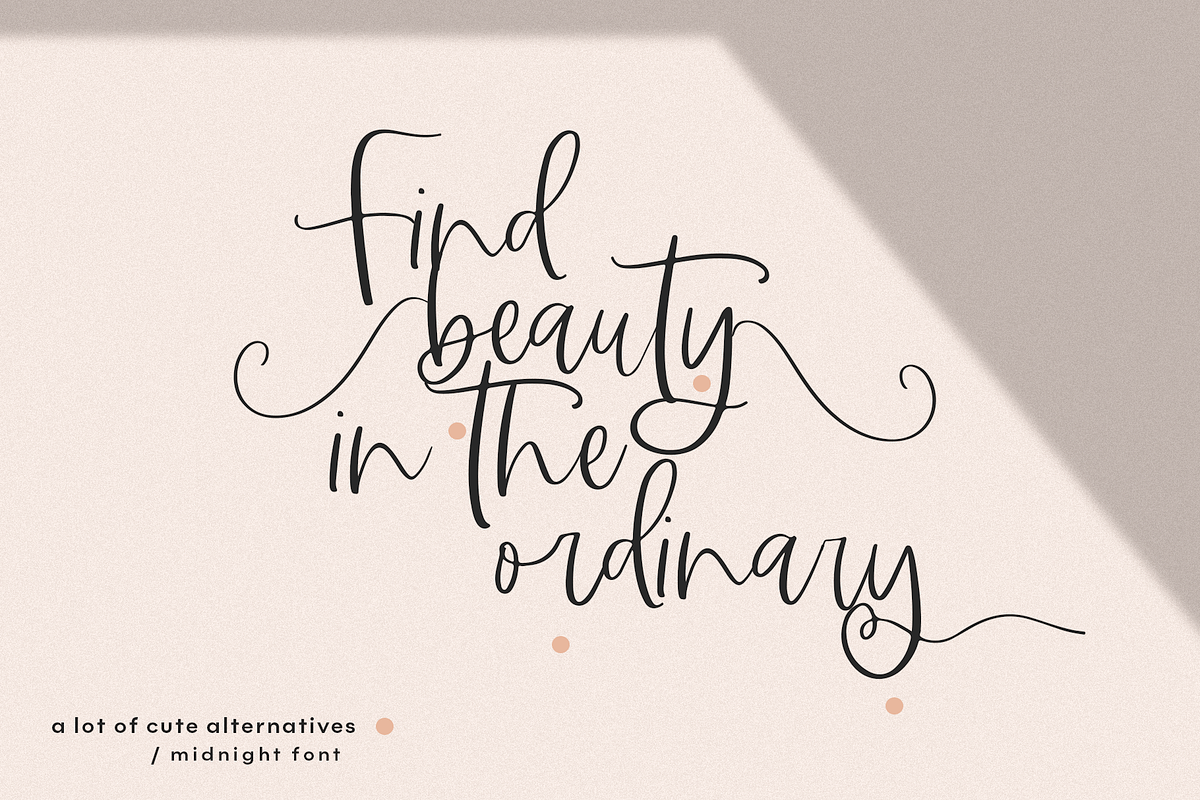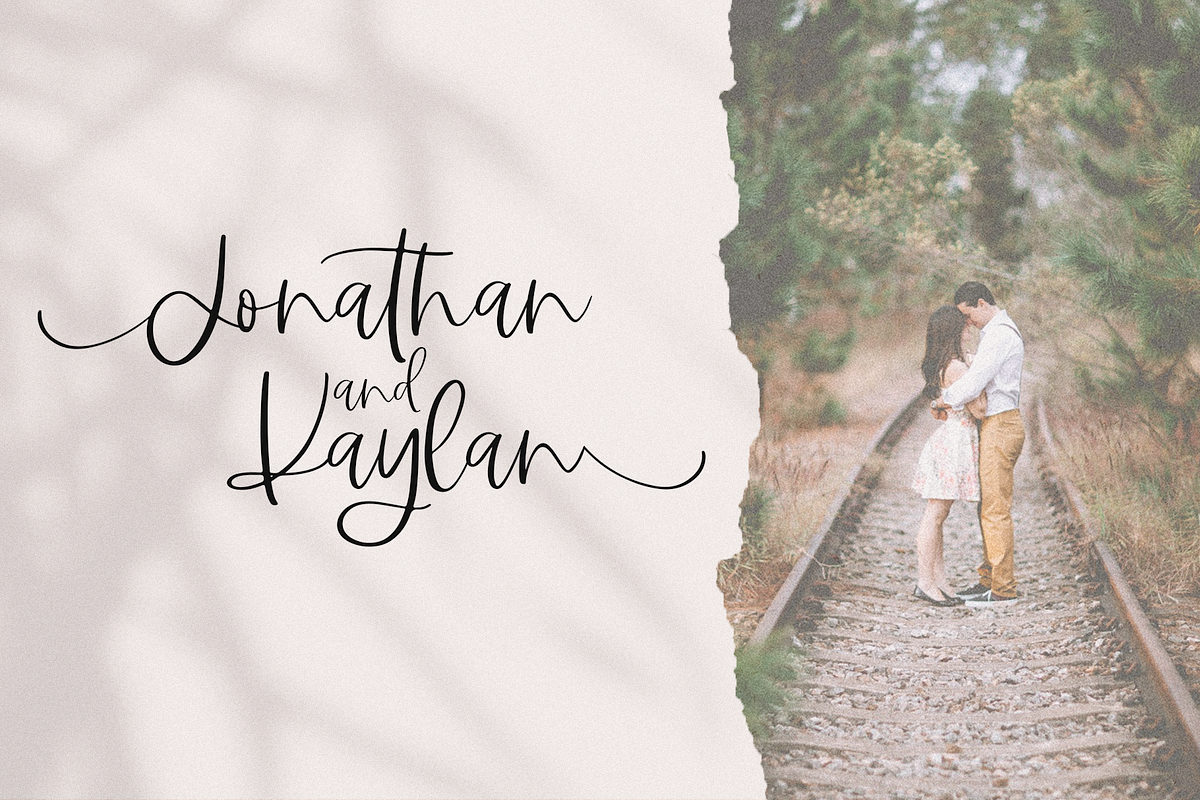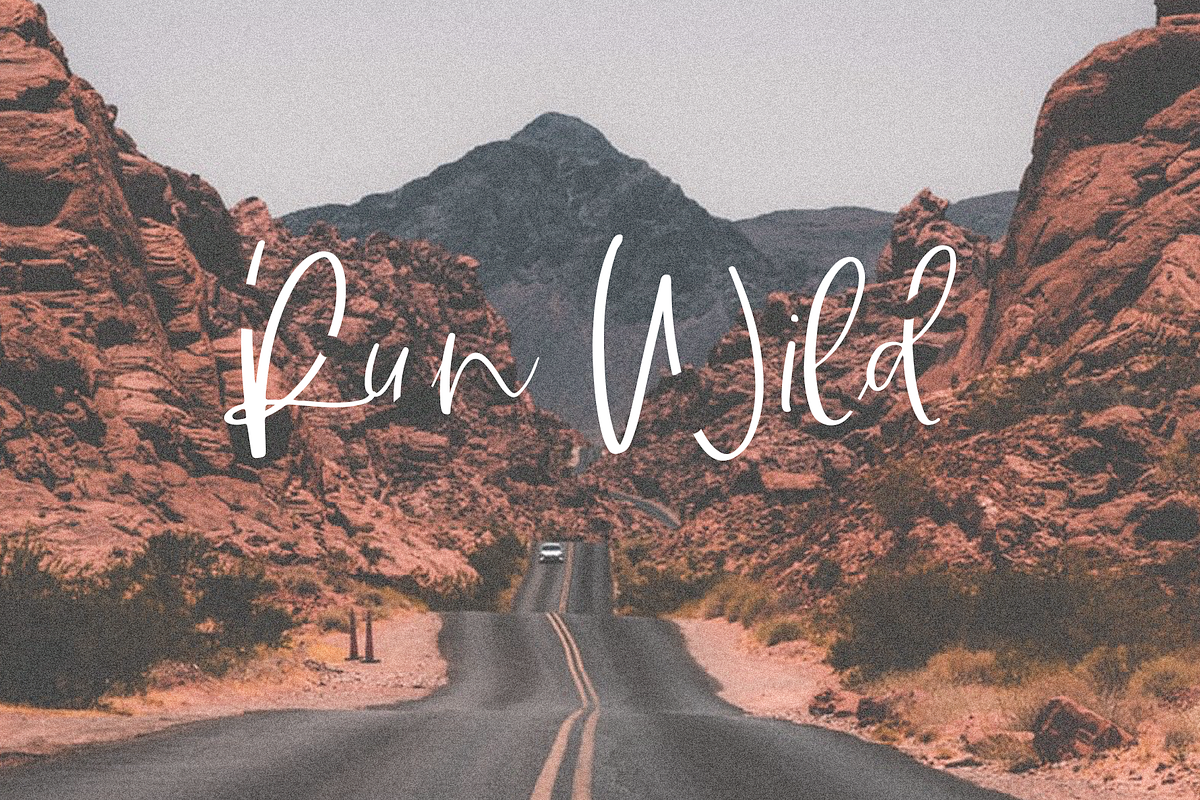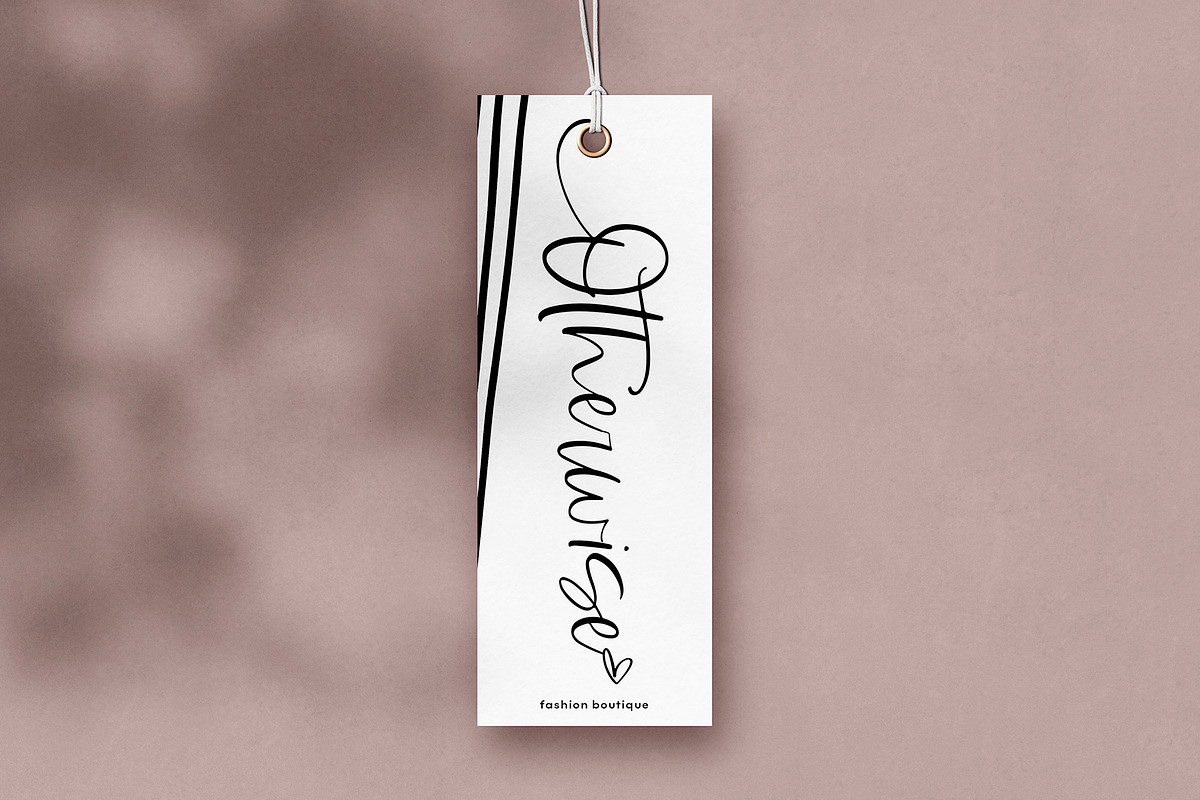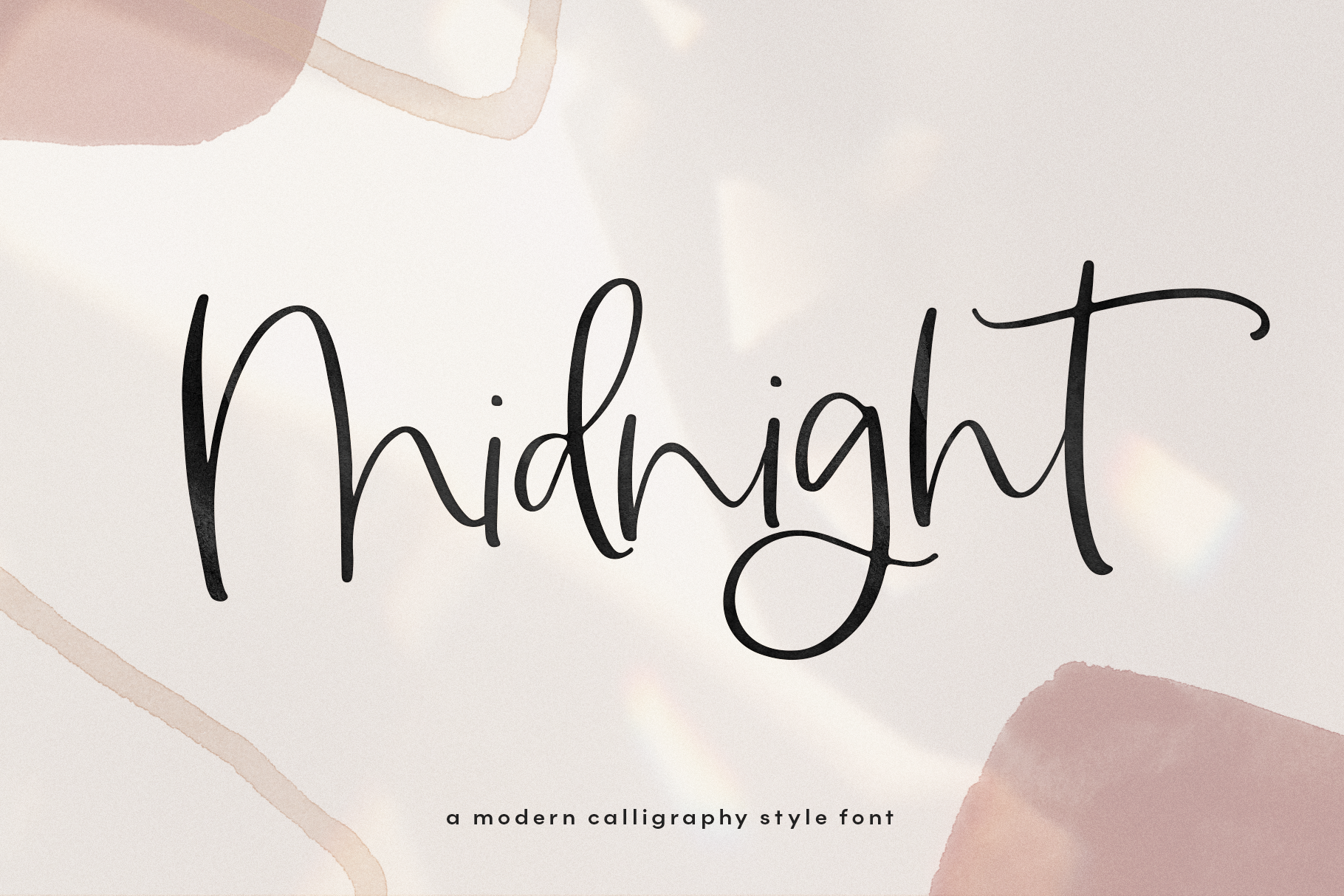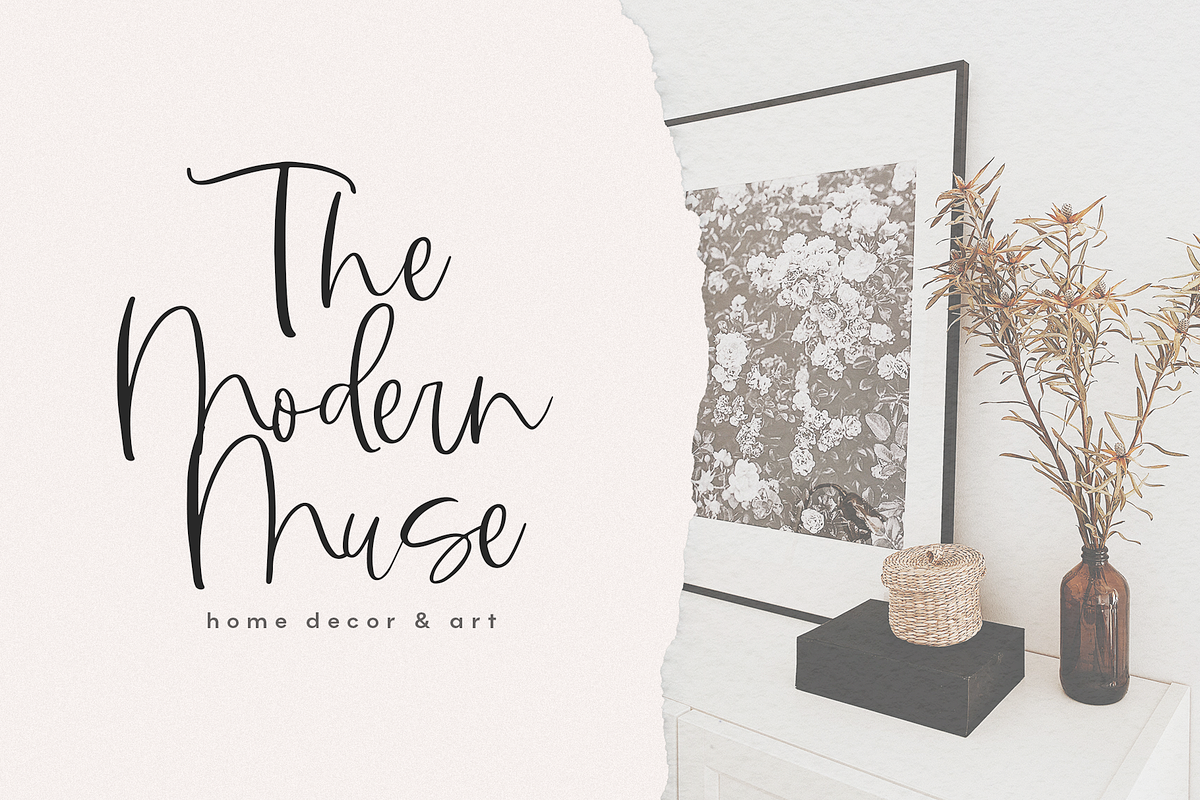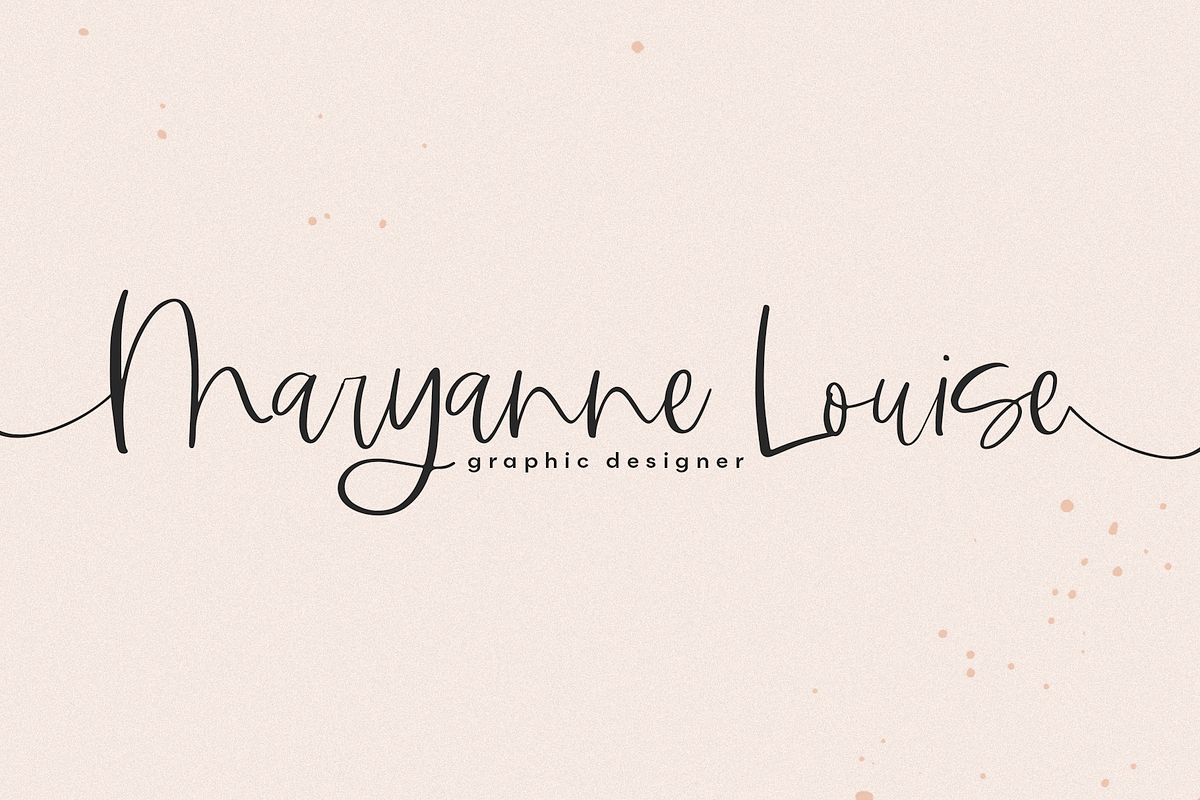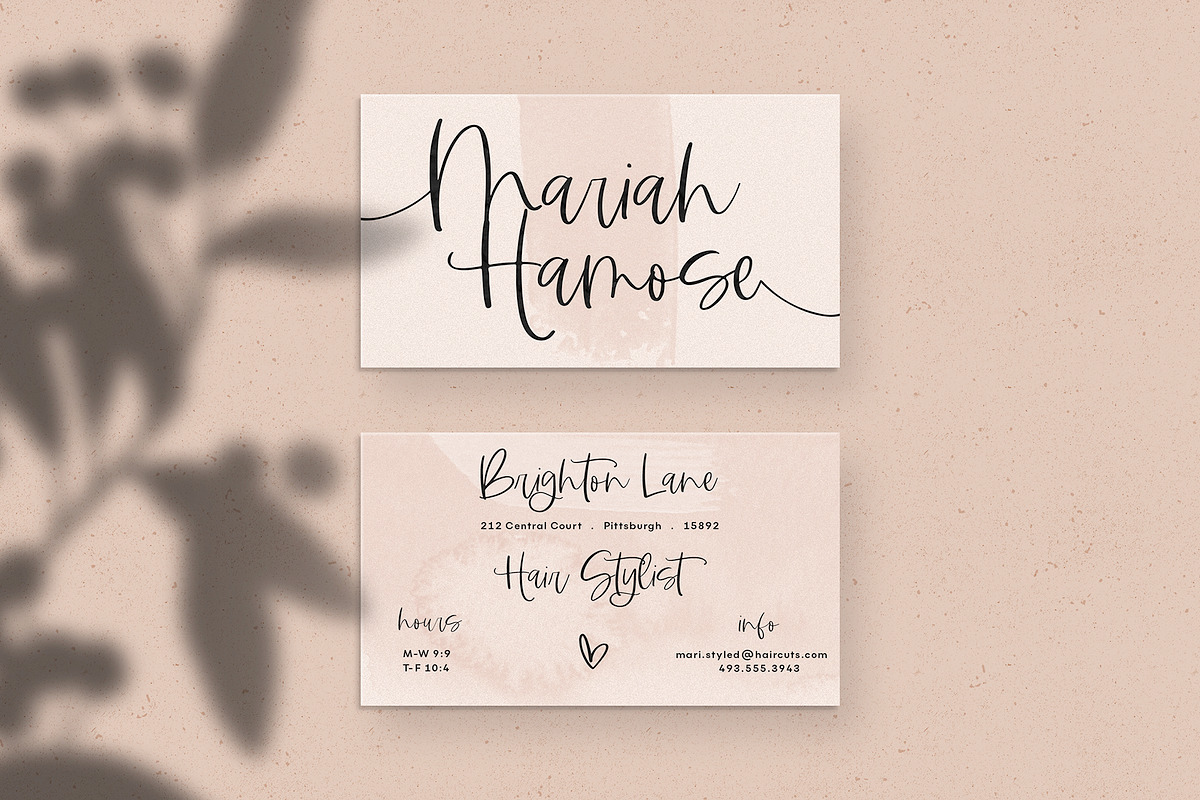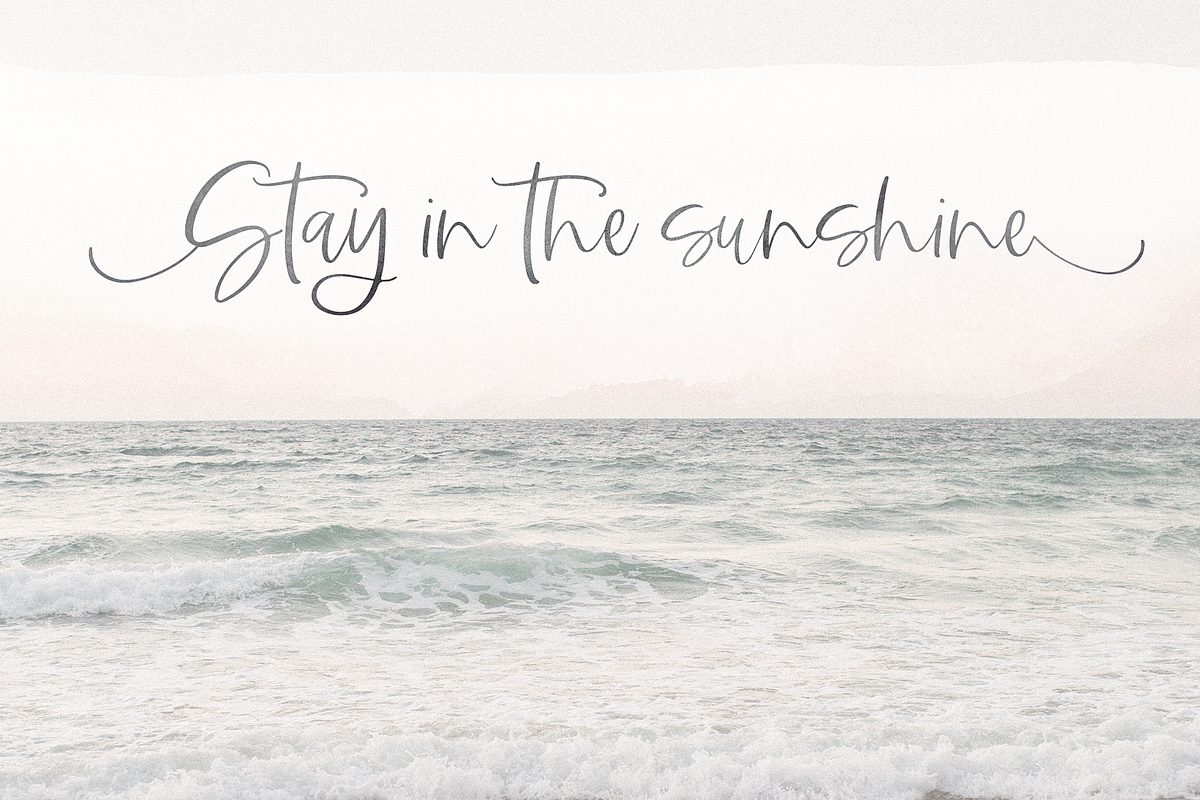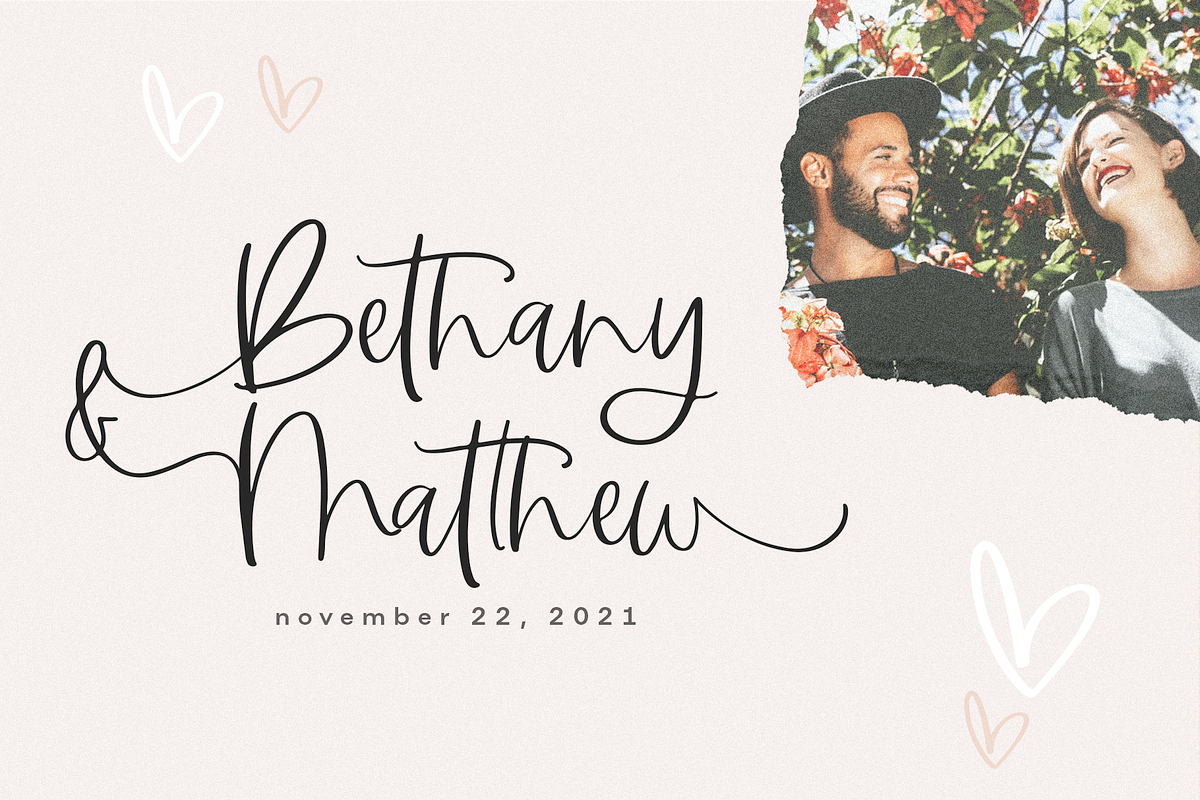
Midnight | Handwritten Script Font
Midnight is a handwritten font with a modern calligraphy look! It comes with a full set of upper (beginning) and lowercase (beginning/ending) swashes!
This font is perfect for modern projects, headings, blogs, logos, brandings, invitations and more!